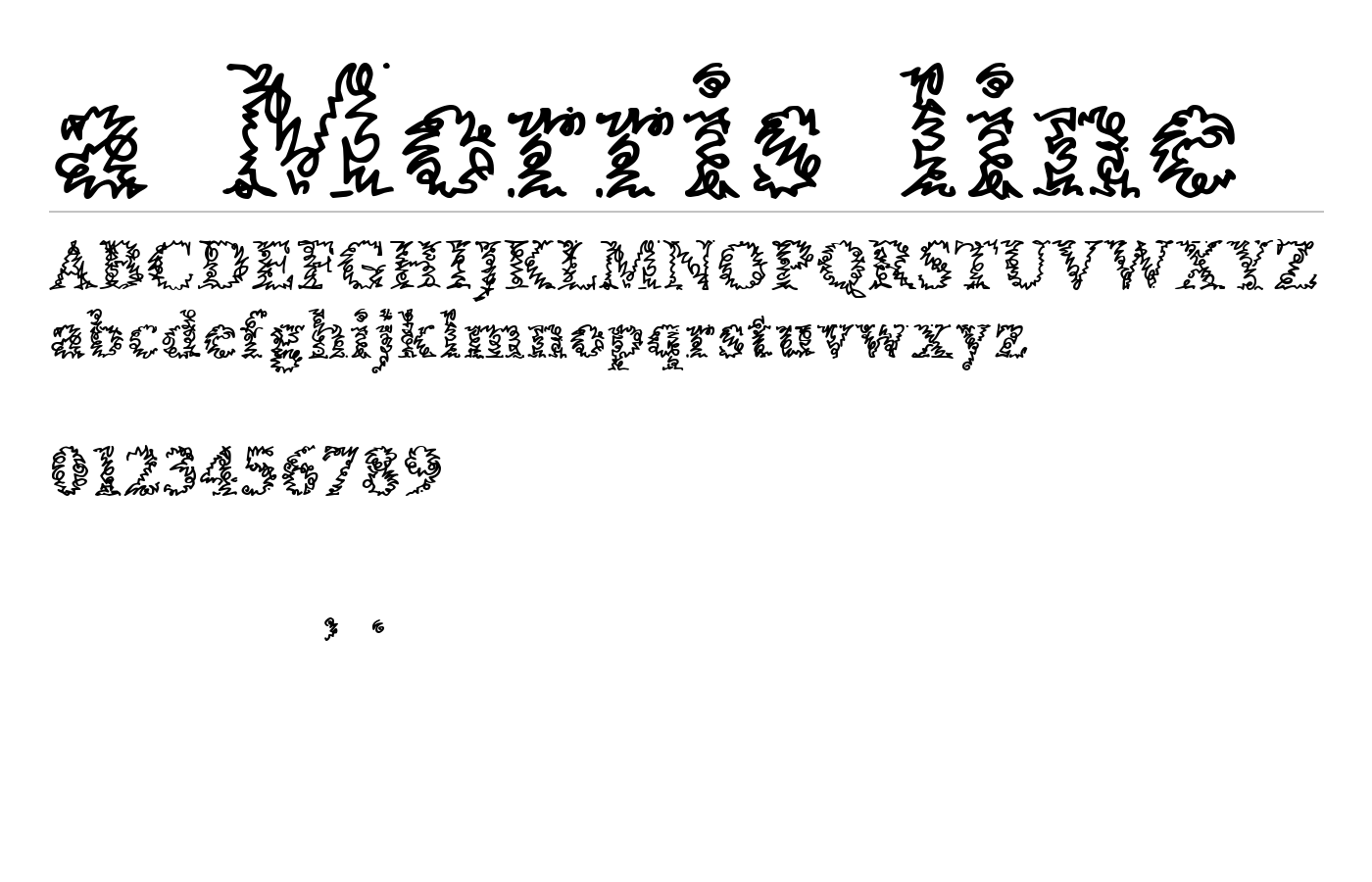
a Morris line is a playful and artistic display font characterized by its irregular, scribble-like strokes that create a dynamic, hand-drawn effect. With its dense, textured letterforms and compact spacing, this font brings a unique, whimsical personality suited for creative projects, posters, and bold headlines where a fun and informal tone is desired. It works best in eye-catching designs that benefit from its distinct, energetic style rather than lengthy body text.
a Morris line Font
About a Morris line Font
| Font family | a Morris line Font |
| Designer | J O E B O B graphics |